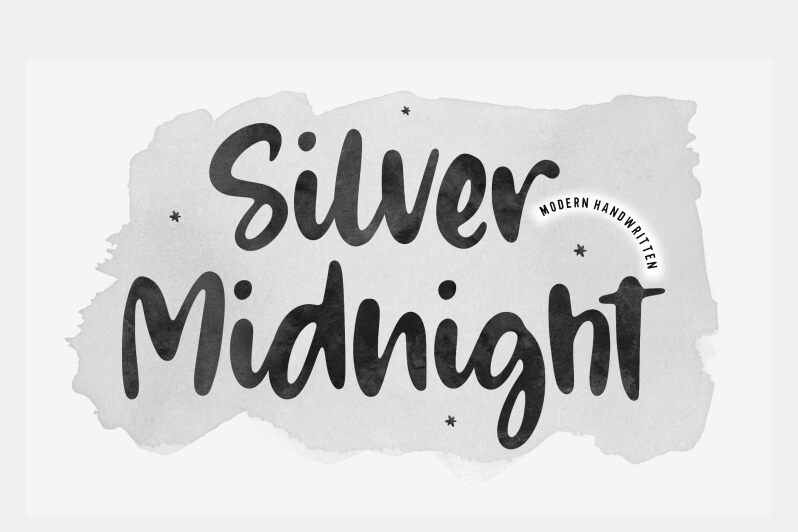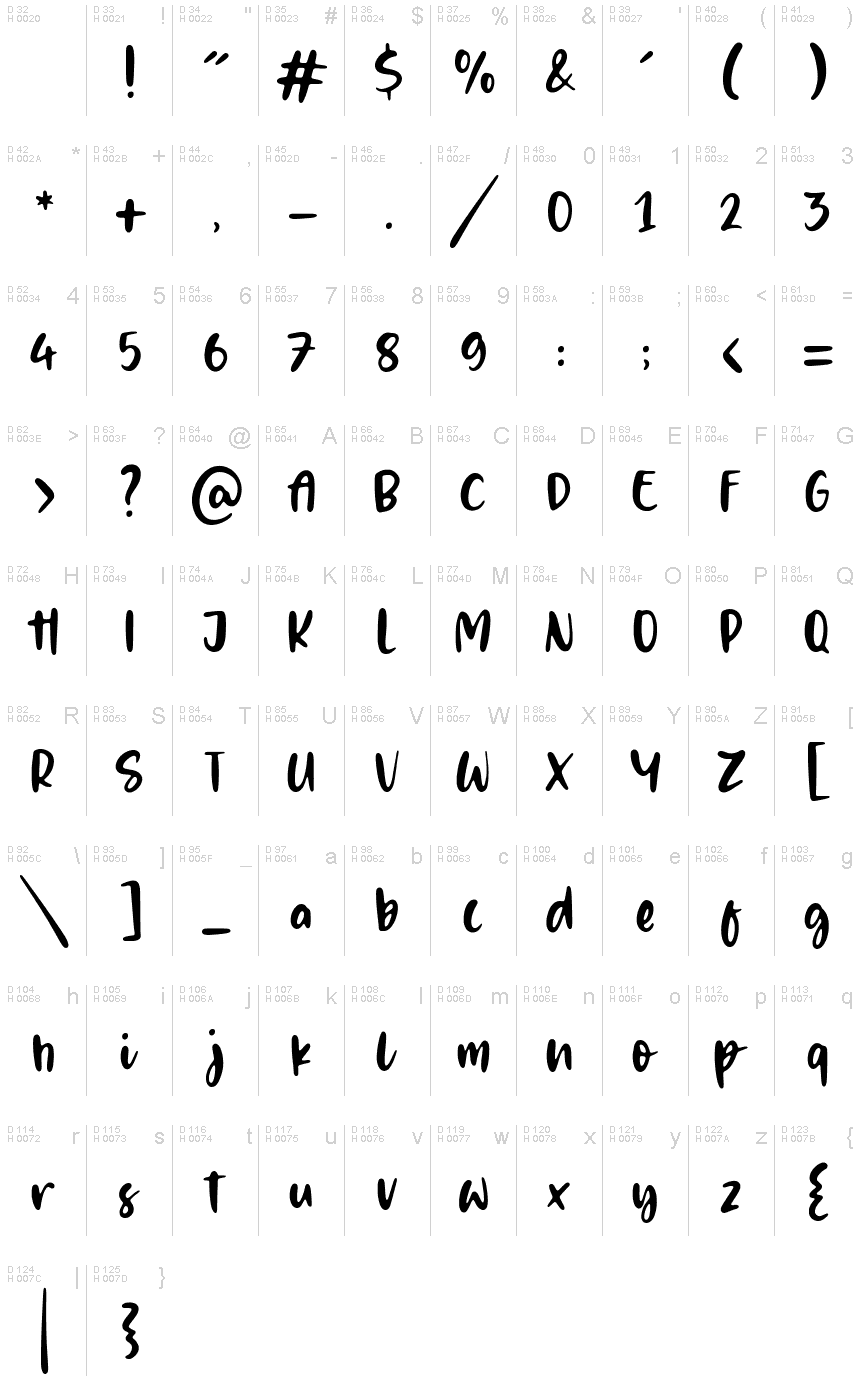
Silver Midnight
Silver Midnight is the perfect semi-bold handwritten font for projects that require a touch of elegance and personality. Created by Balpirick Studio, this font boasts unique character shapes and fluid strokes that add a sophisticated charm to any design. Its versatility makes it suitable for a range of projects including wedding invitations, branding materials, social media graphics, and more. The semi-bold weight ensures that your message is bold enough to stand out while maintaining a touch of subtlety. Upgrade your designs with Silver Midnight and let its whimsical appeal captivate your audience.